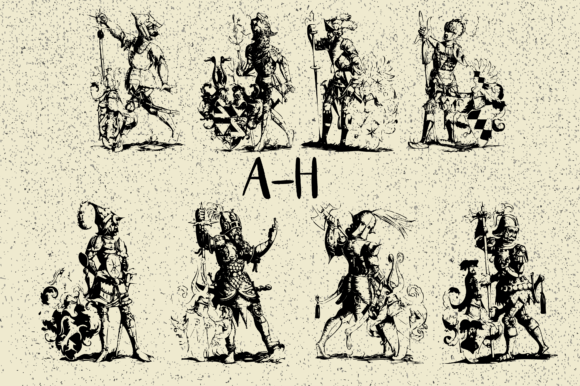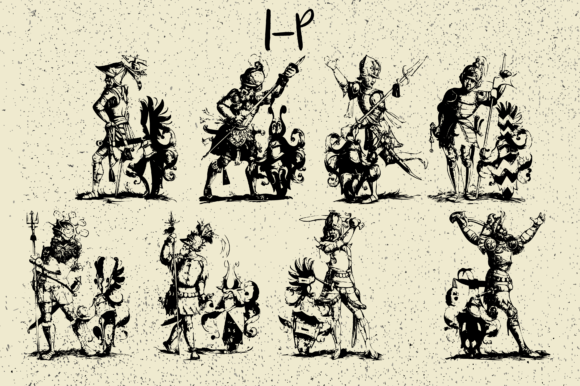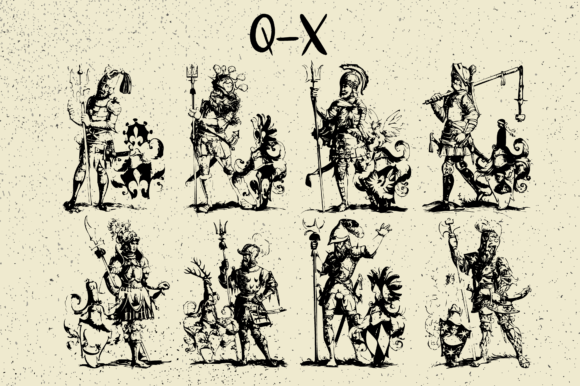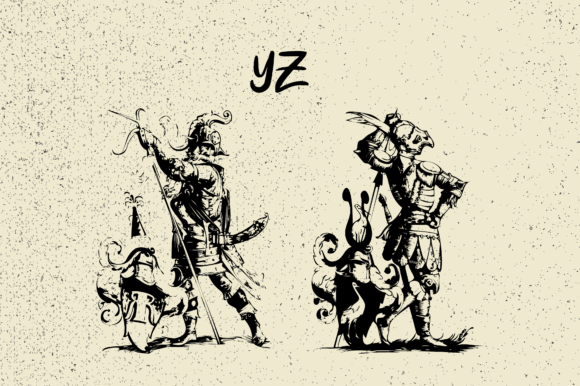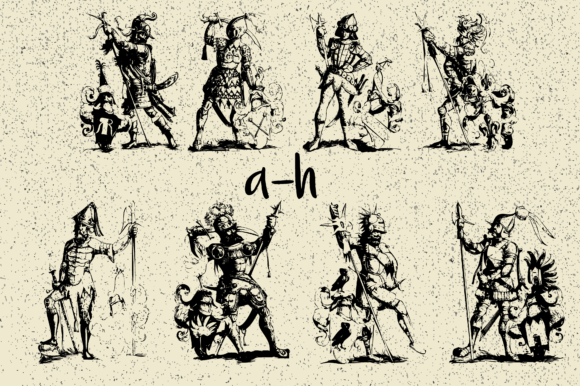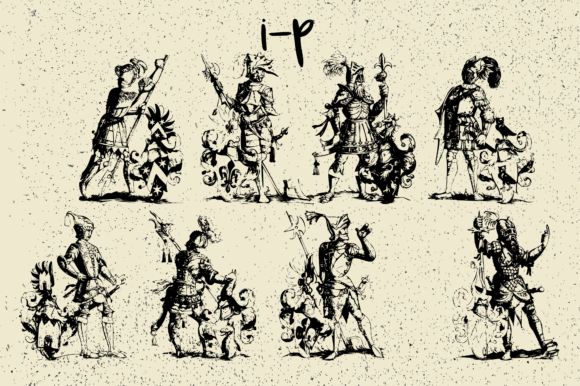
Introduction to Medieval Warriors Font
Have you ever found yourself stuck in the middle of a creative project, desperately searching for the perfect element to bring it to life? That’s where the Medieval Warriors Font comes in – a game-changing dingbats font that will transport your designs to the Middle Ages.
With its 68 unique elements, this font is a treasure trove of design resources, waiting to be unleashed on your next project. Whether you’re working on a fantasy-themed poster, a historical novel cover, or a medieval-inspired game, the Medieval Warriors Font has got you covered. Its high-quality designs and transparent background make it a valuable addition to any designer’s toolkit.
Key Features of Medieval Warriors Font
- High-quality font design ideal for creative projects, such as fantasy novels, video games, and historical reenactments.
- Includes a range of characters, including uppercase and lowercase letters, numbers, and punctuation marks, to provide a comprehensive solution for designers.
- Features a transparent background, allowing designers to easily combine the font with other design elements.
Honest Review: Medieval Warriors Font
I recently had the opportunity to try out the Medieval Warriors Font, and I must say it’s been a game-changer for my creative project. The font is free to download, which is always a plus, and the quality is top-notch. The characters are well-designed, with intricate details that give it a truly medieval feel.
What works well: ✨ The font is incredibly versatile, and I’ve been able to use it in a variety of different contexts. It’s perfect for designing posters, flyers, and even digital graphics. The transparent background feature is also a huge plus, as it allows for easy integration into any design. ✨
However, there are a few limitations: ⚠️ The font is a bit on the heavier side, so it may not be suitable for all design projects. Additionally, the character set is not as extensive as some other fonts I’ve worked with.
Overall, I’m really impressed with the Medieval Warriors Font. It’s a high-quality design resource that’s perfect for anyone working on a creative project. With its free download option and transparent background feature, it’s a must-have for any designer looking to add a touch of medieval flair to their work.
- Perfect for posters, flyers, and digital graphics
- Transparent background feature
- A bit on the heavier side
- Character set could be more extensive
The Medieval Warriors Font is perfect for:
- Creating medieval-themed posters, flyers, and social media graphics
- Designing logos, typography, and graphics for medieval-themed projects
- Adding a medieval touch to presentations and documents